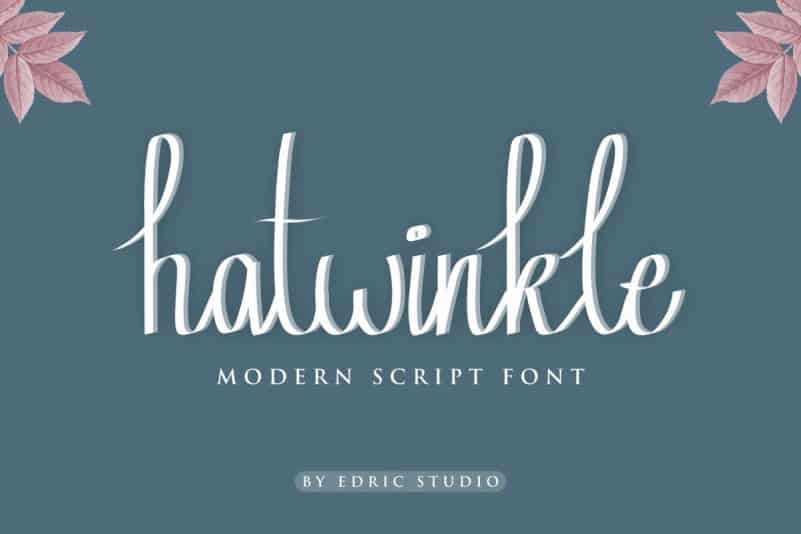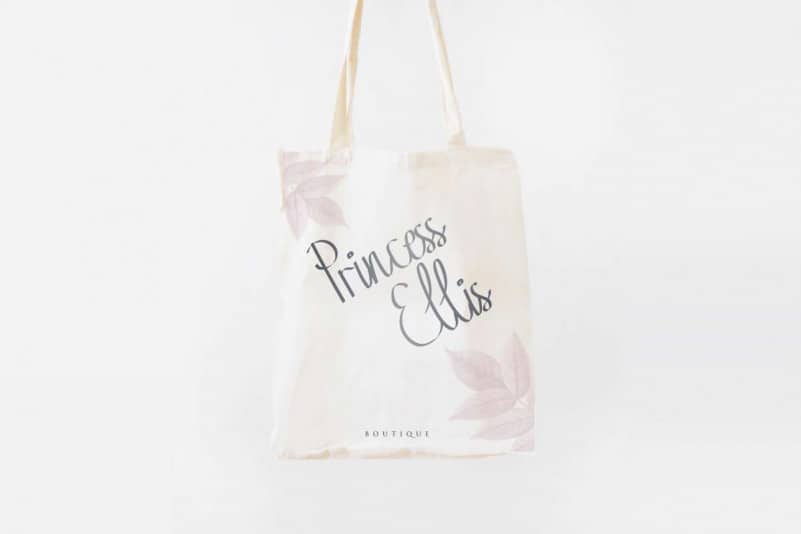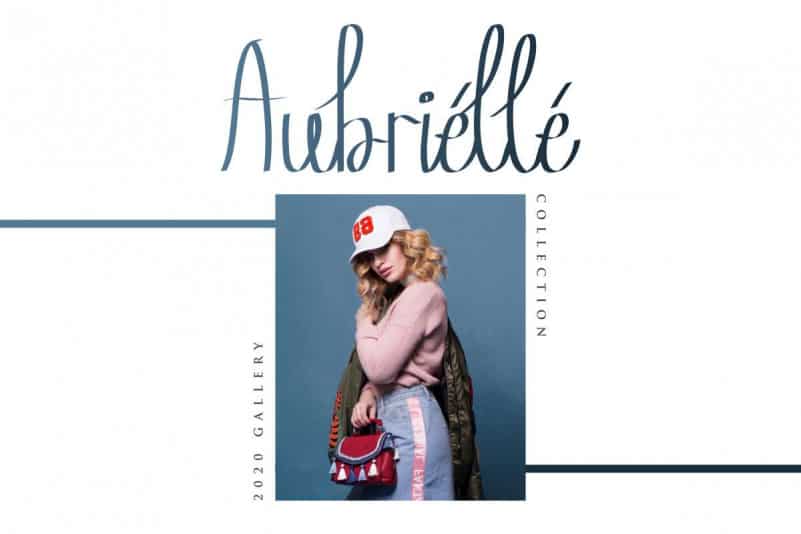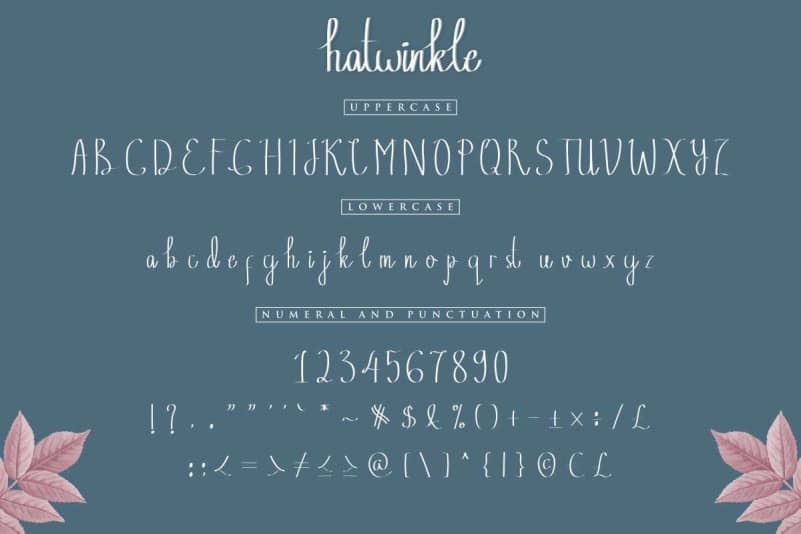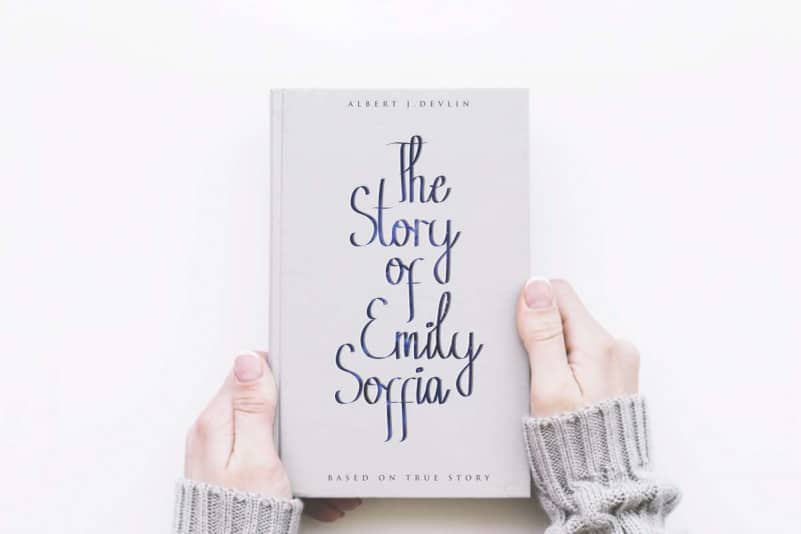
Hatwinkle Calligraphy Font
Edric Studio in 2020 Present to you : Hatwinkle Calligraphy Font This is a display script font family made in Bandung-Indonesia. It has three styles : Reguler and Italic. Made by Widi and Sarah in Bandung and Garut – Indonesia.